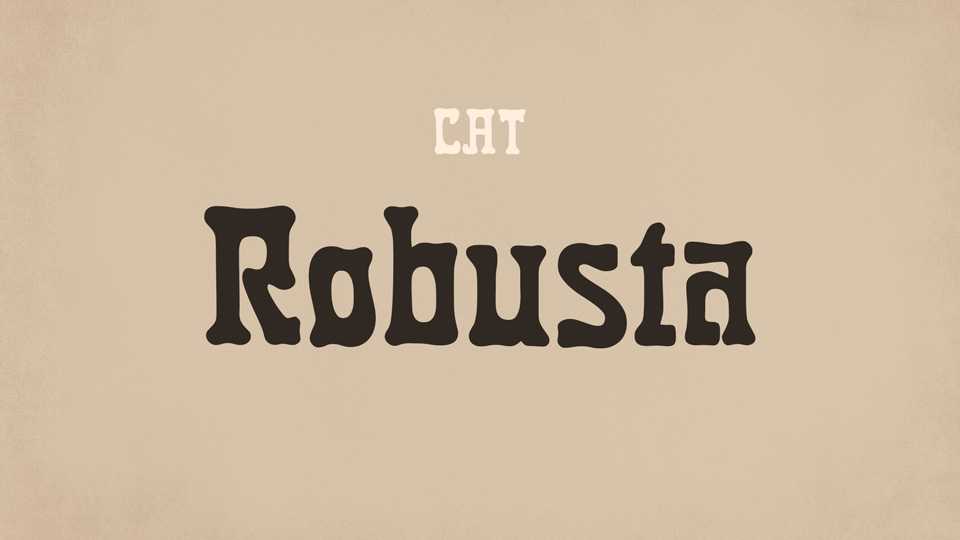
Download Robusta font, a vintage typeface with a strongly European feel and a flavour of the 1920s. Robusta font can be used for poster or banner work, packaging or cover design, headins and short paragraphs of text.